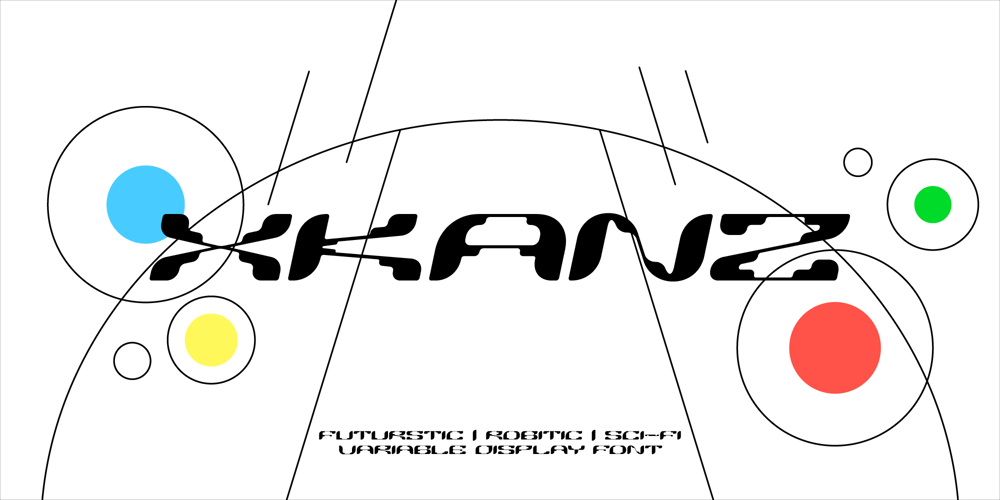
Xkanz Font Family was designed by Abe Zeinali and published by Xuveki. Xkanz contains 3 styles and family package options. XKANZ is a futuristic, robotic, variable display font geared towards cyberpunk poster text, cover text, and futuristic UI. It can easily shine as both as header and body.Wide glyphs, high weight and corner contrast, and “connectors” that bridge the gap between the stems, it’s this mix of elements that give XKANZ its unique look.The purchase includes two static styles, regular and oblique, and a variable font file with a interpolatable 0-12 degree slant axis. Extensive multilingual support covering most latin characters 4 stylistic sets that include alternates for the D, I, R, and E glyphs, along with symbol/punctuation alternates such as the parenthesis, brackets, and more. Possible updates include condensed versions. The updates will be free and available to everyone who has already purchases XKANZ.This one was a wild and weird journey. It took A LOT of iteration to get to this end product. I’m proud to share it. EnjoyAll questions, requests, or inquiries can be sent to abe.xuveki@gmail.com or DM’d to Xuveki on Instagram (https://www.instagram.com/xuveki)